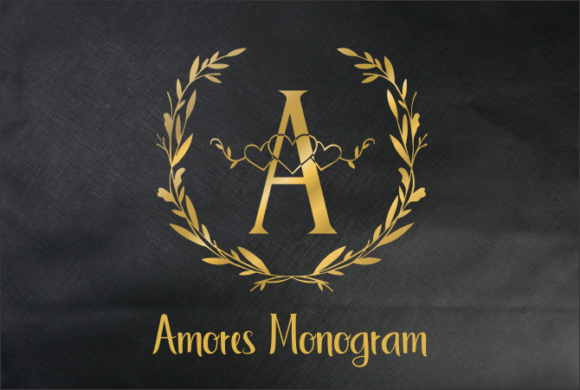
Love in the Time of Typography
As you sit down to craft a love letter or design a wedding invitation, you’re often on the hunt for the perfect font to convey the emotions and sentimentality of the moment. It’s a search that requires a delicate balance of elegance and romance – and that’s where the Amores Monogram Font comes in.
This pure and elegant decorative font is designed to add a touch of whimsy and charm to your designs. Whether you’re a seasoned designer or a DIY enthusiast, Amores Monogram Font is a valuable addition to your toolkit. Its versatility and romantic flair make it a go-to choice for designers looking to create beautiful and meaningful designs.
With Amores Monogram Font, you’ll be able to create love letters, wedding invitations, and other designs that exude a sense of love and elegance. So why settle for a generic font when you can add a touch of romance and personality to your designs?
Amores Monogram Font Key Features
- Font Style: Monogram, Script, and Display fonts
- Unique Characteristics: Hand-drawn design, elegant and sophisticated feel, ideal for wedding invitations, branding, and luxury packaging
Designer Review: Amores Monogram Font
I recently had the chance to work with the Amores Monogram Font, and I have to say it’s a lovely addition to any design project. ✨ The intricate details and classic feel make it perfect for wedding invitations, stationery, and other romantic-themed designs.
- ✨ Elegant and sophisticated design that exudes romance
- ✨ Wide range of customization options, including font sizes and colors
- ✨ Supports both uppercase and lowercase letters, making it versatile for various designs
- ⚠️ Limited character set, which may not be ideal for longer text-based designs
- ⚠️ Some characters may not be as crisp or clear as others, depending on the resolution and size
Overall, I’d say the Amores Monogram Font is a great choice for designers who want to add a touch of elegance and romance to their projects. While it may not be perfect for every design, its unique style and customization options make it a valuable addition to any font collection.
Tip: Use the Amores Monogram Font to create custom monogram designs for weddings, parties, or personal branding.
Tip: Use the Amores Monogram Font to create custom logos, invitations, or other design elements.
Tip: Use the Amores Monogram Font to create custom presentations, resumes, or other documents.
The Amores Monogram Font is ideal for:
- Personal branding and logos
- Party and event decorations
- Custom gift tags and labels
Alternatives to Amores Monogram Font
Alegreya Monogram
Alegreya Monogram is a modern, elegant monogram font suitable for various design projects, including invitations, branding, and packaging. It features a clean and minimalist design that makes it easy to read and customize. Alegreya Monogram is ideal for designers who want a sophisticated and stylish look. It differs from Amores Monogram Font in its more modern and refined aesthetic, making it a great choice for contemporary designs.
Monogram Script
Monogram Script is a beautiful, handwritten monogram font that adds a touch of elegance and sophistication to any design project. It’s perfect for weddings, special occasions, and high-end branding. Monogram Script features a flowing and cursive design that makes it ideal for designers who want to add a personal touch to their work. Compared to Amores Monogram Font, Monogram Script is more ornate and detailed, making it a great choice for projects that require a luxurious feel.
Playfair Display Monogram
Playfair Display Monogram is a luxurious and elegant monogram font that’s perfect for high-end branding, invitations, and special occasions. It features a classic and sophisticated design that’s reminiscent of traditional typography. Playfair Display Monogram is ideal for designers who want to add a touch of sophistication and elegance to their work. Compared to Amores Monogram Font, Playfair Display Monogram is more formal and traditional, making it a great choice for projects that require a classic look.